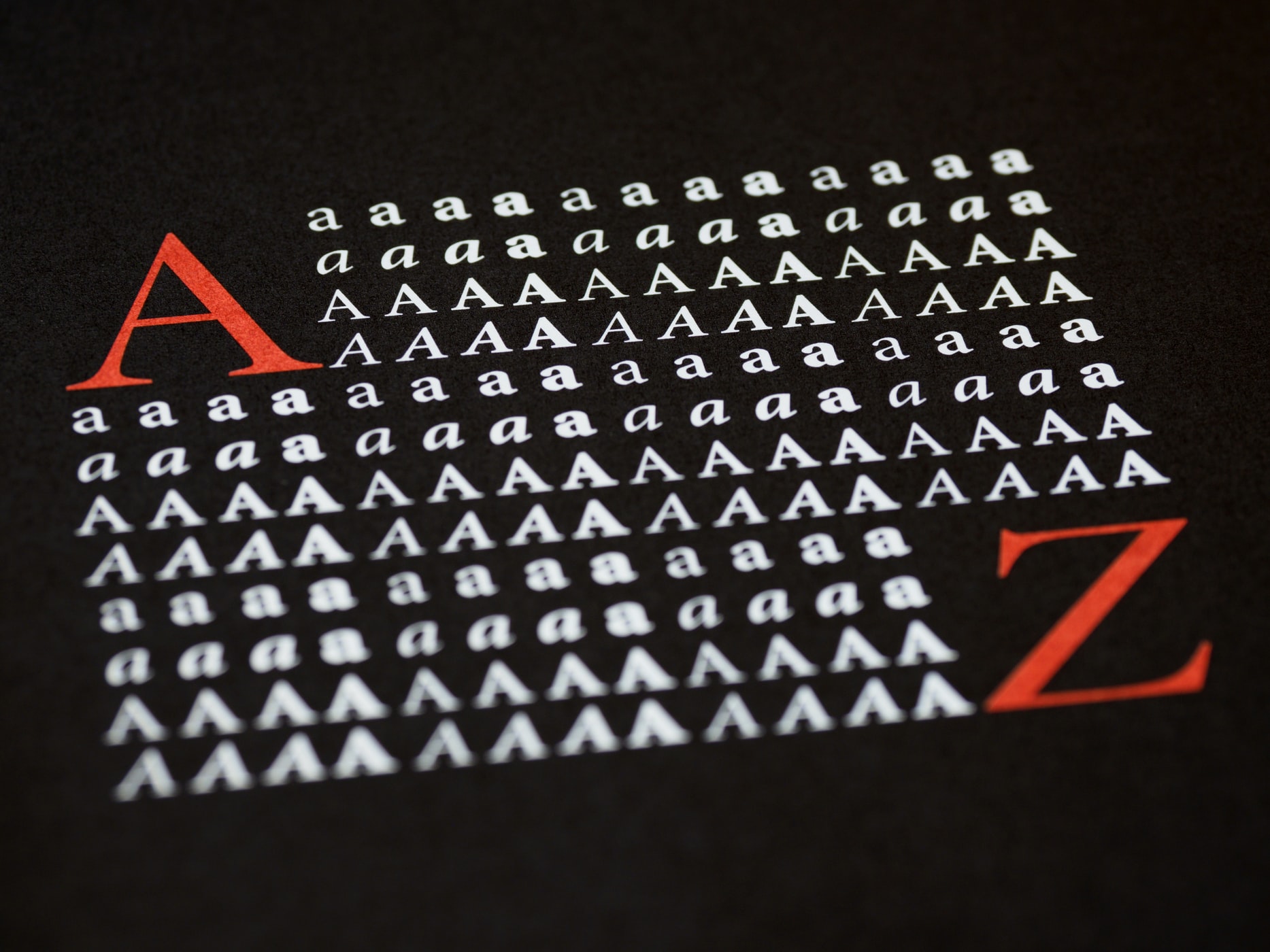
The design of the typeface is based on roman square capitals. Make sure that you use fonts in legal way.
Free How To Choose Typeface For Logo Free Download, The typeface you choose for titles and headings should look good in relation to your logo font. The last thing you want, after all, is for anyone to mistake their typeface with your brand name.
Pick a pair of logo fonts that matches your brand personality pair a serif with a sans serif to exude approachability and trustworthiness. In fact, choosing the right typeface can make a real difference to the effectiveness of the entire project. Among multiple fonts available on the market, it’s. Finding a typeface that gels with a particular industry is all about meeting the consumers’s expectations.
How to Choose Fonts That Reflect Your Brand Style and Font Psychology You should have one typeface for titles, headings, and web components like buttons and navigation.
A rustic vibe might suit a mechanic shop but will feel out of place on a logo for a software company. Times new roman is one of the most commonly used serif fonts. For example — nike uses the futura typeface set in bold italic font and zara uses didot with a very tight kerning. Remember that ‘free’ fonts do not mean that you can use them.
The design of the typeface is based on roman square capitals. Pick a pair of logo fonts that matches your brand personality pair a serif with a sans serif to exude approachability and trustworthiness. Also, your brand is one of a kind, so that means your logo should be too. This is one of the best fonts for a logo to ensure the versatility of your logo design. How to match font and image on your design • Online Logo Maker's Blog.
Thin characters or those with thin serifs will get lost against a dark background. Make sure that you use fonts in legal way. If your graphic element is swirly and feminine, it might pair well with the swashes and loops of a script. Among multiple fonts available on the market, it’s. How To Choose The Right Font For Your Logo Logo Design Magazine.
This way you will affect the audience’s perception of the message. It should carry on the theme and reinforce your brand personality. This font is clean, simple, and fun, which is excellent for brands looking to communicate relatability in their logo. You must be aware of the user agreement section that tells about commercial use of the fonts. How To Choose The Right Font For Your Logo Logo Design Magazine.
Less is more, and clarity and simplicity is not at odds with creativity. Find out what typeface your direct competition already uses. Your task is to find a typeface that will connect the text with the graphics to achieve the corporate objective. The default typeface which communicates your brand’s identity, values and personality. How To Choose The Right Font For Your Design Dream Logo Design.
Brandcrowd offers access to a library packed with typeface logos created by professional designers from around the world. Read the font licensing agreement for the fonts you select for your logo. When it comes to highly used and best logo fonts typefaces of the 20th century, the one font name that holds its ground strong is — futura. The last thing you want, after all, is for anyone to mistake their typeface with your brand name. How to Choose a Font for Your Logo Logaster.
When it comes to highly used and best logo fonts typefaces of the 20th century, the one font name that holds its ground strong is — futura. Be sure that the style of your typography matches the style of any icon or other visual element (such as a border or underline) you choose to. Brands like microsoft, panasonic, jeep, lufthansa, american airlines, verizon and many. Best logo designers make use of this typeface if you want to create logos that are simple and clear. How to Choose Fonts That Reflect Your Brand Style and Font Psychology.
netflix logo uses the bebas neue font with a bit arch to it. Be sure that the style of your typography matches the style of any icon or other visual element (such as a border or underline) you choose to. Font your brand uses for accents. • handwriting fonts are designed to look more human and usually look warm and inviting. Choosing the Best Logo Font for Your Small Business.
A typeface that complements the primary font and supports the typographic design system. A rustic vibe might suit a mechanic shop but will feel out of place on a logo for a software company. It’s up to you to define your goals and choose a typeface that provides the level of differentiation your brand needs. The two or three typefaces you choose should comprise: How to choose the right font for your logo — sixredsquares.
This Is One Of The Best Fonts For A Logo To Ensure The Versatility Of Your Logo Design.
This font is clean, simple, and fun, which is excellent for brands looking to communicate relatability in their logo. If your graphic element is swirly and feminine, it might pair well with the swashes and loops of a script. This way you will affect the audience’s perception of the message. • handwriting fonts are designed to look more human and usually look warm and inviting.